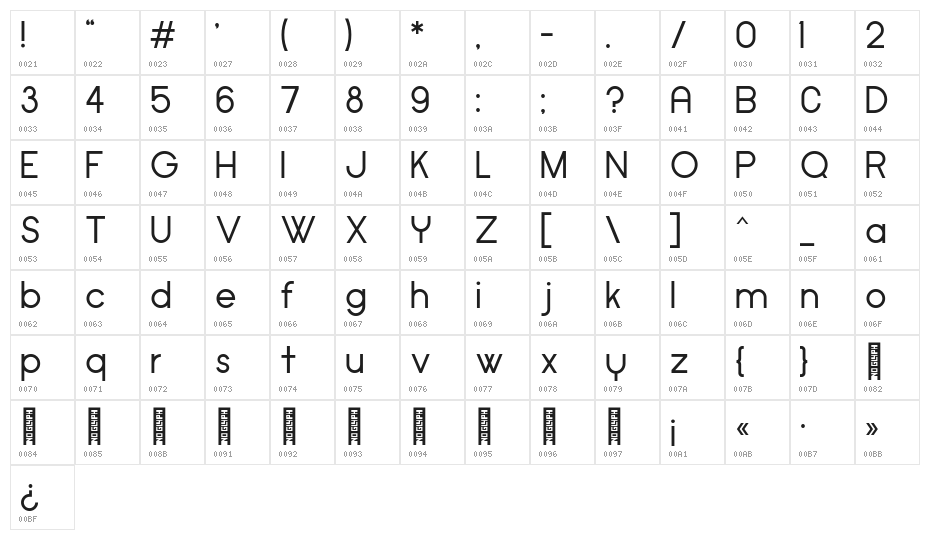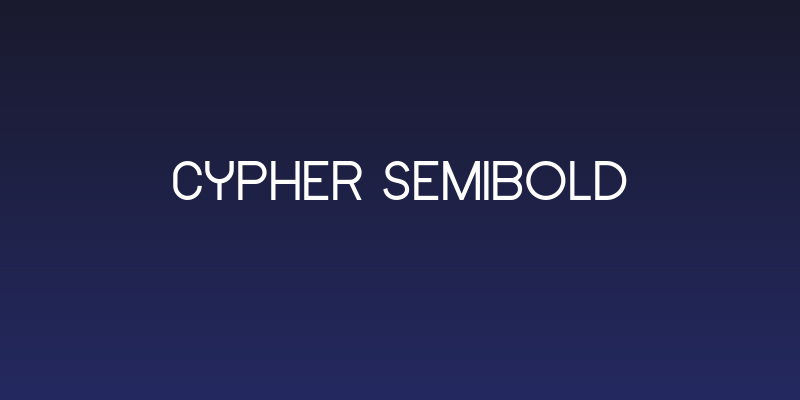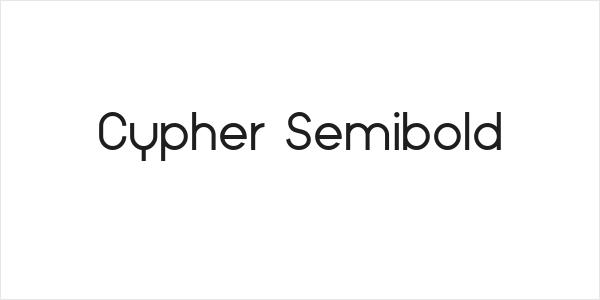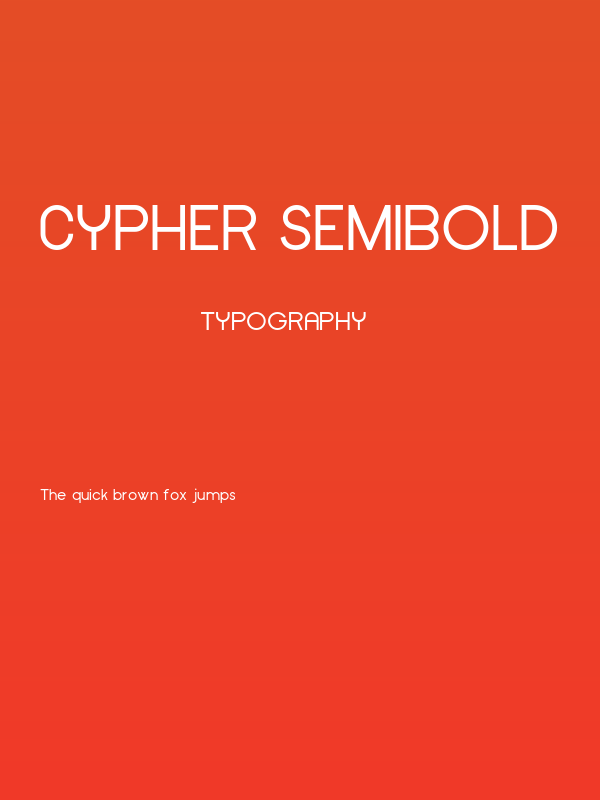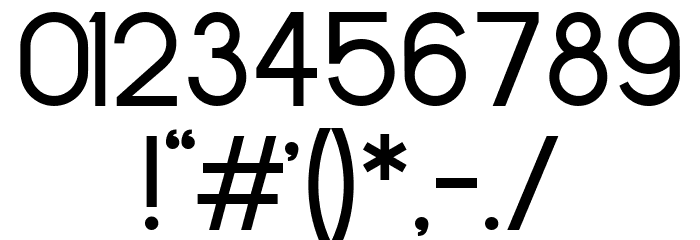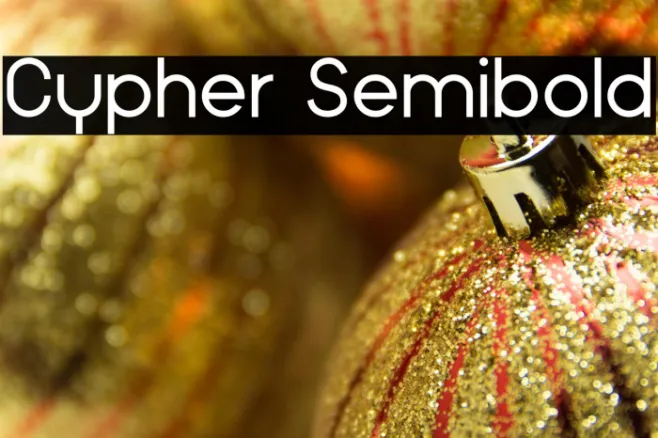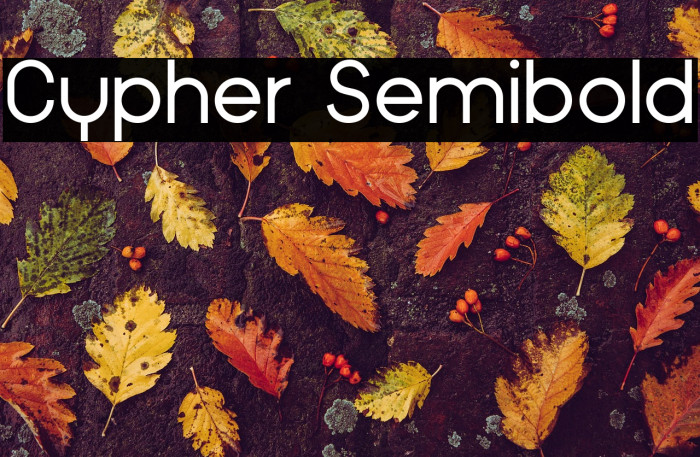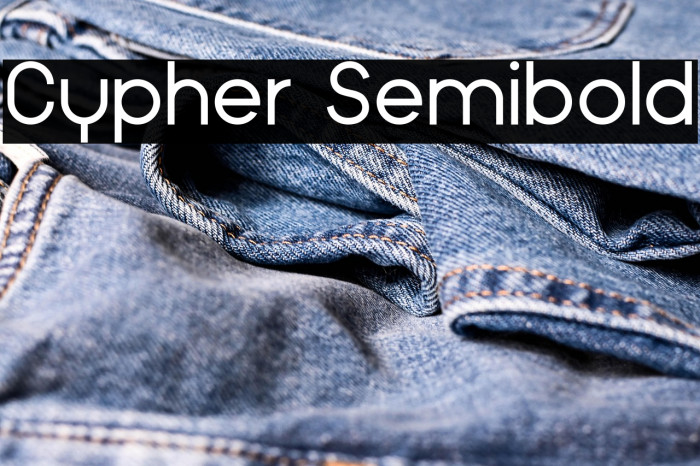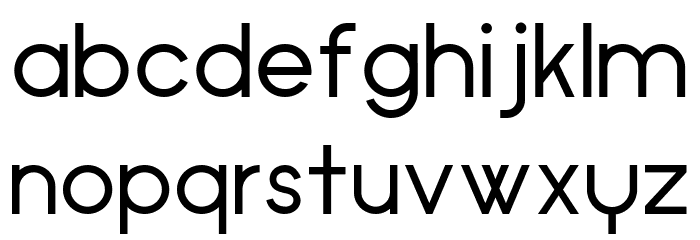
Cypher Semibold Font
Cypher Semibold Description
This font features a clean, geometric sans-serif style with a modern aesthetic. The characters are well-balanced, with uniform stroke widths that give it a sleek and contemporary look. The uppercase letters are bold and assertive, while the lowercase letters maintain a consistent roundness and simplicity. The numerals are clear and easily distinguishable, making them suitable for a variety of applications. Special characters are designed with the same attention to detail, ensuring readability and cohesion across all glyphs. The overall design is versatile, making it suitable for both digital and print media.
| Use Case | Headlines, Logos, Web design |
| Proposed Projects | Ideal for branding, web design, advertising, and editorial layouts where a modern and clean look is desired. |